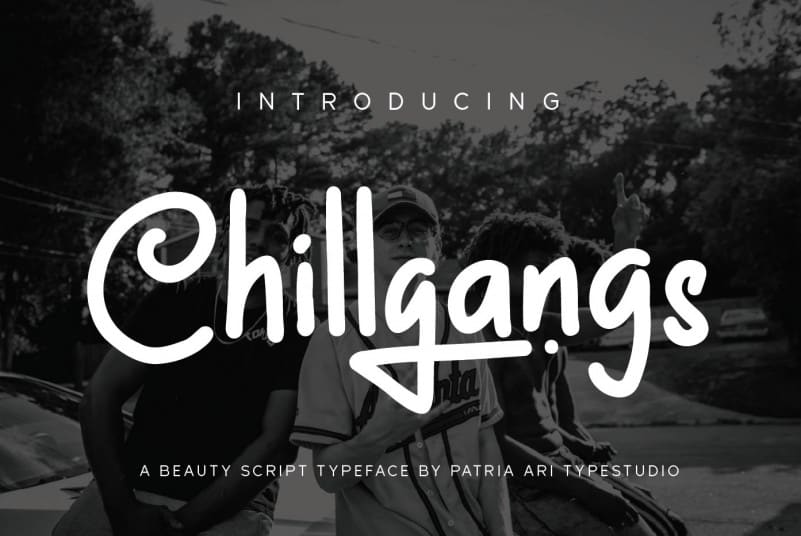
Chillgangs Font
Chillgangs Script Font is a monoline display typeface inspired from graffiti culture, with alternative glyphs and swashes. Chillgangs is perfect for apparel, logo, social media posts, advertisements, product packaging, product designs, label, and any projects that you work on.